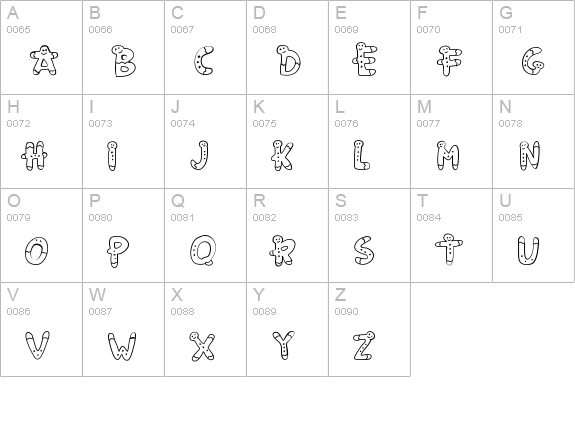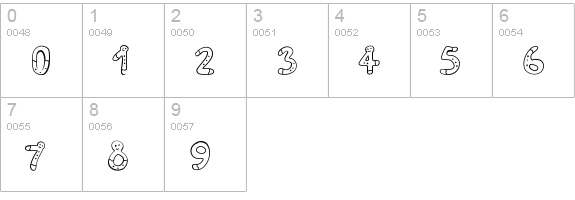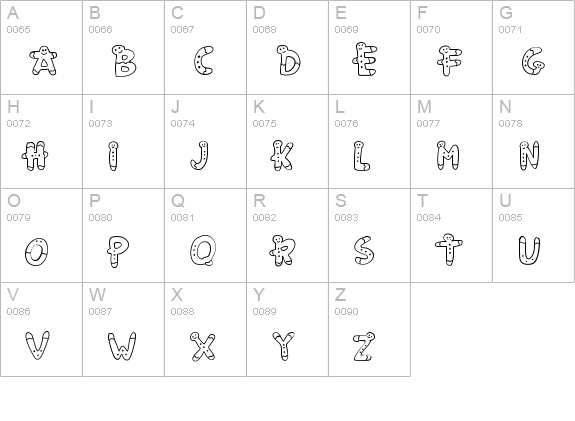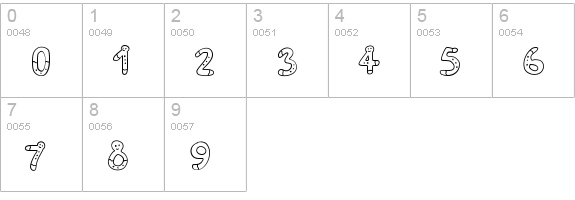
PWGingerbread Font Details
Introducing PWGingerbread font - a delightful and whimsical typeface that will sprinkle a touch of sweetness to your designs! This charming font captures the essence of traditional gingerbread cookies, with its curvaceous and playful letterforms that evoke a sense of warmth and nostalgia. PWGingerbread font is the perfect choice for any project that requires a dose of sugary goodness. Whether you're designing greeting cards, holiday invitations, or baking blogs, this font will add a festive and delicious touch to your creations. Its unique and handcrafted design makes it stand out from the crowd, guaranteeing a memorable and eye-catching result. What makes PWGingerbread font even more enticing is that it is completely free! That's right - you can download this incredible font at no cost from FontsMarket.com. With just a few clicks, you'll have access to this delightful typeface that will bring a smile to anyone's face. Not only is PWGingerbread font freely available, but it also offers a wide range of characters and glyphs, ensuring versatility and compatibility with various design software. From uppercase and lowercase letters to numbers, punctuation marks, and special characters, this font has got you covered for all your creative needs. So, why wait? Add a touch of sweetness to your designs with PWGingerbread font today. Download it for free at FontsMarket.com and let your creativity run wild. Whether it's holiday-themed projects or simply adding a sprinkle of joy to your everyday designs, this font will surely bring a dash of magic to your work.